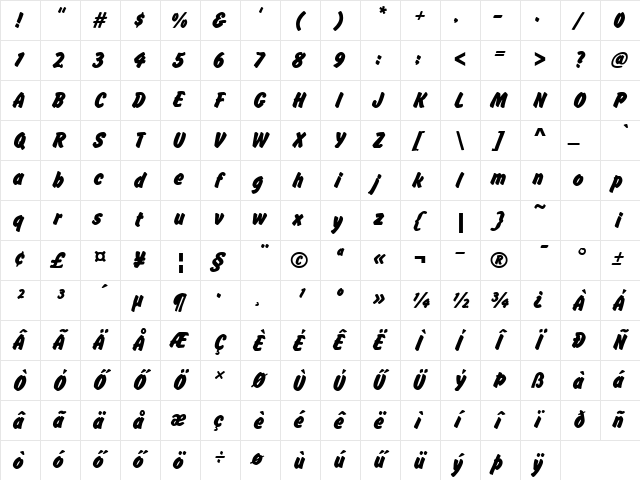
H_FlashDBol Bold Free Font
H_FlashDBol Bold
Complete H_FlashDBol Bold glyph index. Displaying only characters natively supported by H_FlashDBol Bold font.
Design Context for H_FlashDBol
H_FlashDBol is a composed and adaptable typeface that performs quietly and consistently across a wide range of design contexts. Its bold stroke weight gives it real presence on the page.